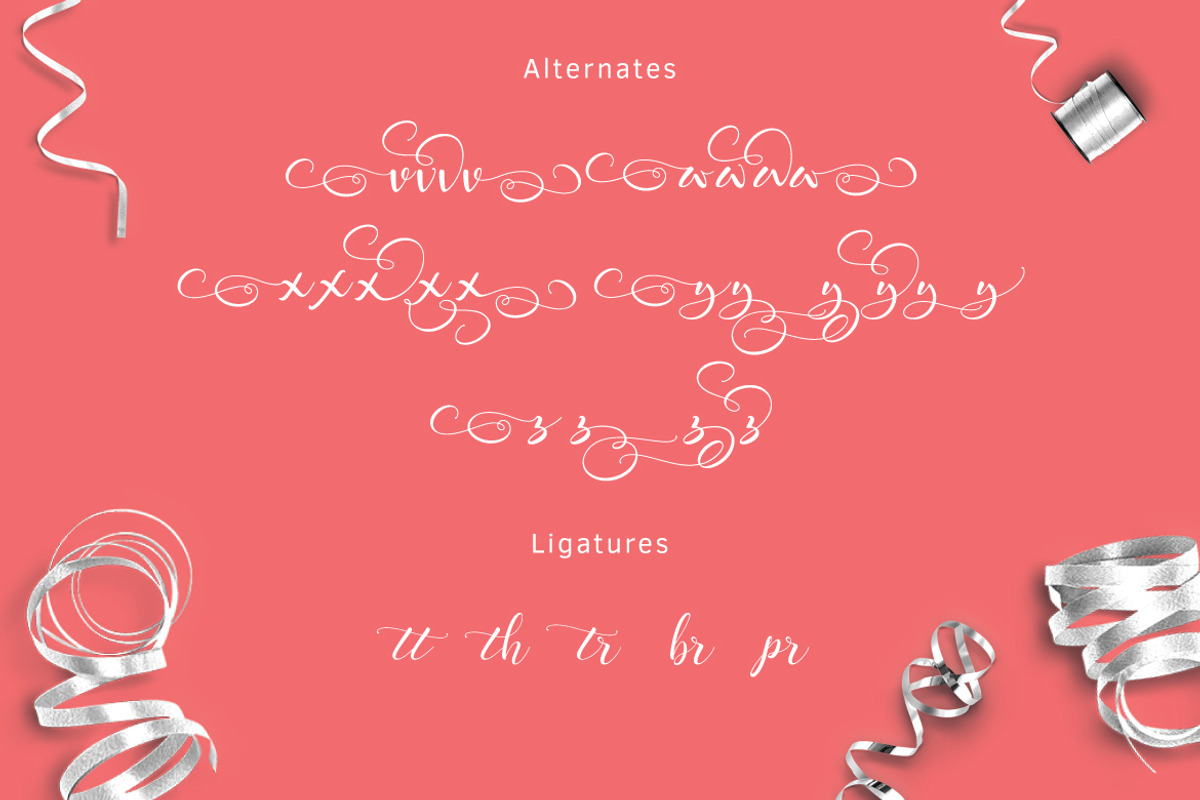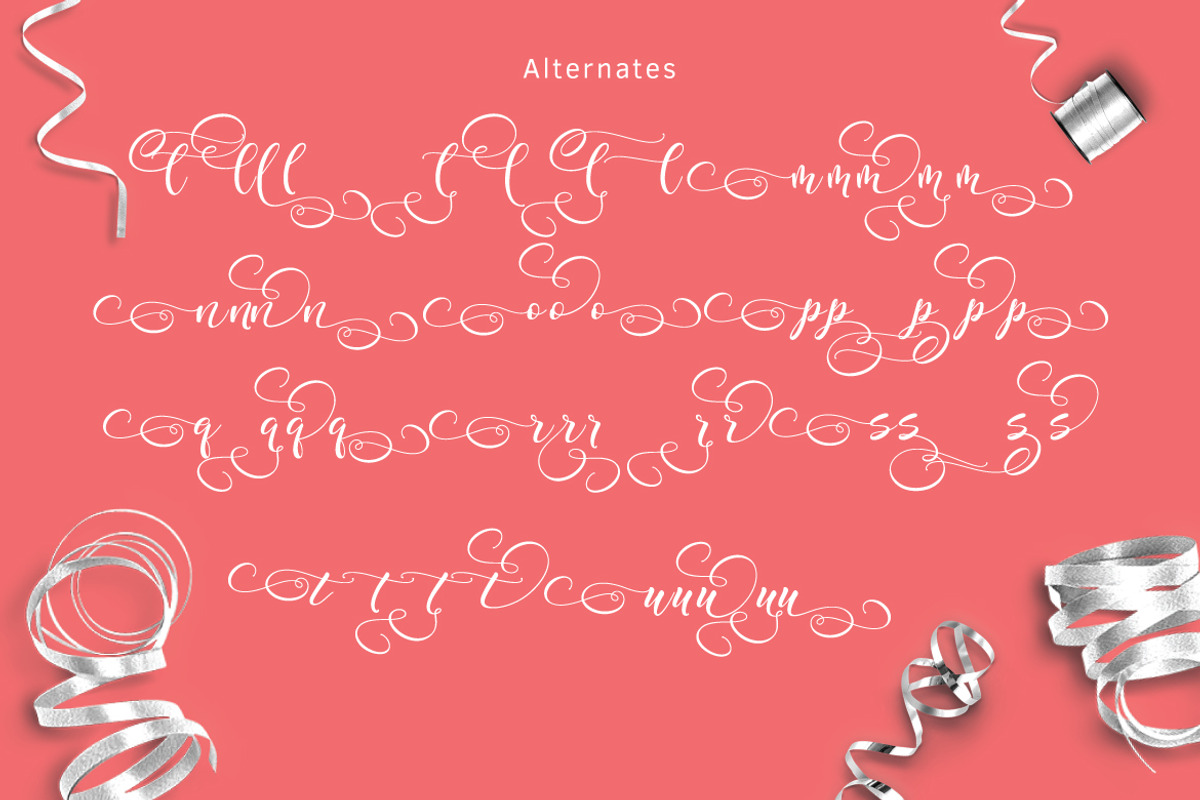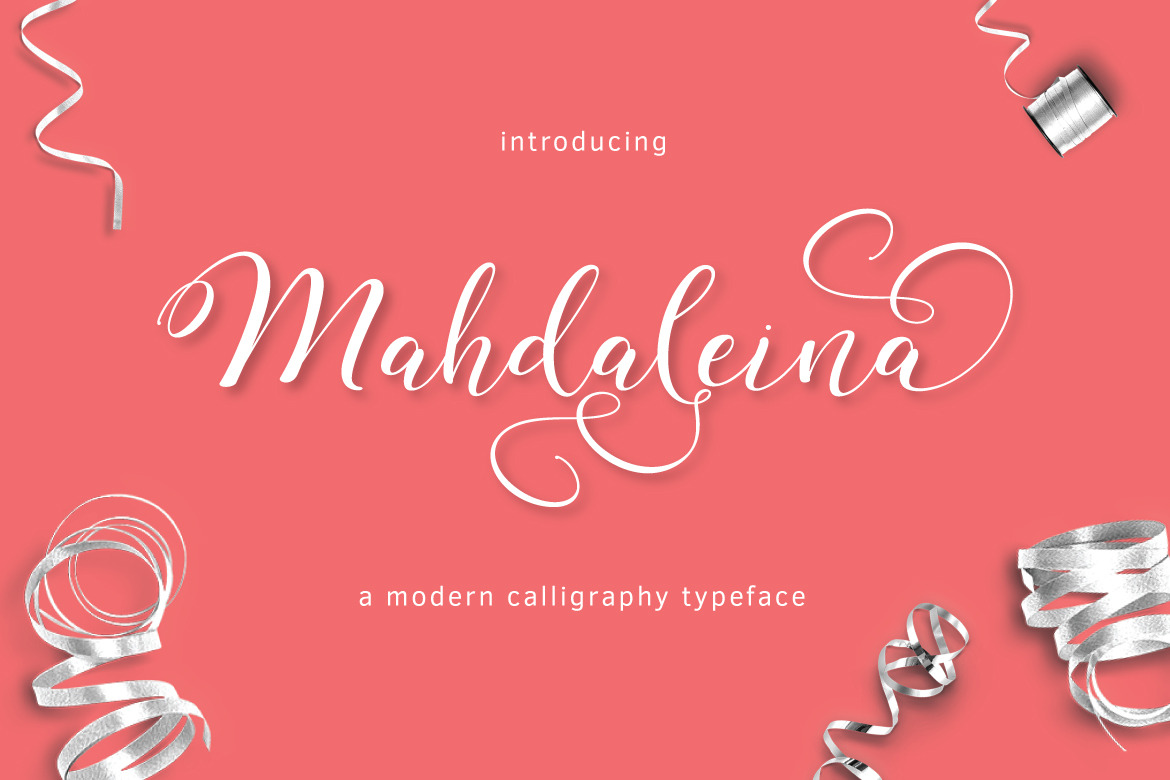
Mahdaleina Typeface
Mahdaleina is modern calligraphy script font, every single letters have been carefully crafted to make your text looks beautiful. With modern script style this font will perfect for many different project ex: quotes, blog header, poster, wedding, branding, logo, fashion, apparel, letter, invitation, stationery, etc.
Mahdaleina script including alternate glyph.
- Stylistic alternatives & swashes
- Initials & finals
- International characters (Multilingual)
- Punctuation & symbols